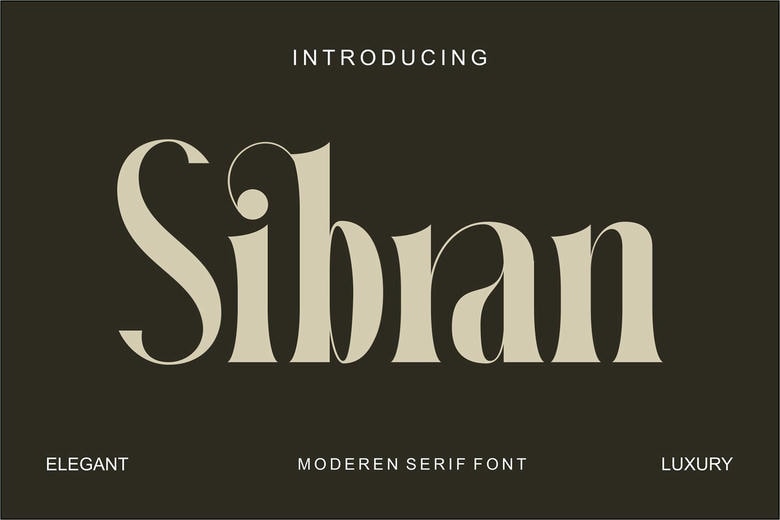
Sibran Font
Sibran is an elegant and classy serif font with its matching italic and full of ligatures. This is work great with branding, website project, logo, fashion concept, and lot more.
Sibran Serif Font